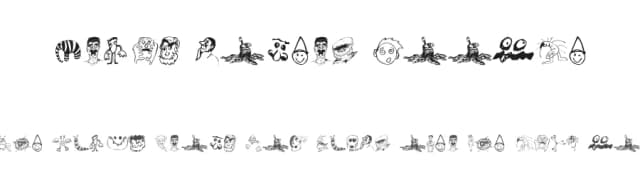
About Brian powers Doodle 2 Font
Brian powers Doodle 2 is a dingbat font designed by Furdzville. It includes 67 glyphs, a regular weight, TTF (TrueType) format, and 89 languages. Brian powers Doodle 2 is free to download; check the license details on this page before commercial use. Dingbat fonts like Brian powers Doodle 2 work best for icons, ornaments, bullet points, and decorative accents.
Brian powers Doodle 2 Font is a versatile dingbats font that works for both headings and body text. Pair it with a contrasting sans-serif or serif font to add visual interest and a clear distinction between titles and body copy.
Brian powers Doodle 2 Font
by Furdzville
Brian powers Doodle 2 Font is a dingbats typeface by Furdzville, ideal for logos, invitations, branding, and creative projects.